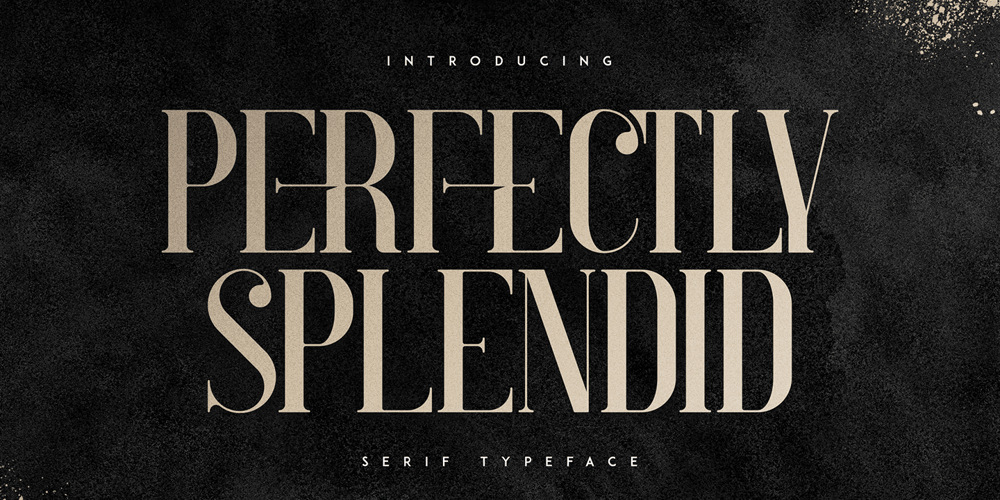
Perfectly Splendid Font Family was designed by Vladimir Fedotov, Plamen Petrov and published by VP Creative Shop. Perfectly Splendid contains 5 styles and family package options. Introducing Perfectly Splendid serif typeface – 5 weightsPerfectly Splendid is magical, sophisticated typeface with 5 fonts to enchant your next project. Very versatile fonts that works great in large and small sizes. Basic latin and advanced latin character sets are supported!Perfectly Splendid is perfect for branding projects, home-ware designs, product packaging, magazine headers – or simply as a stylish text overlay to any background image. Uppercase numeral, punctuation & Symbol Hairline, Light, Regular, Bold, Black Ligatures Multilingual support Feel free to contact me if you have any questions!Mock ups and backgrounds used are not included.Thank you! Enjoy!